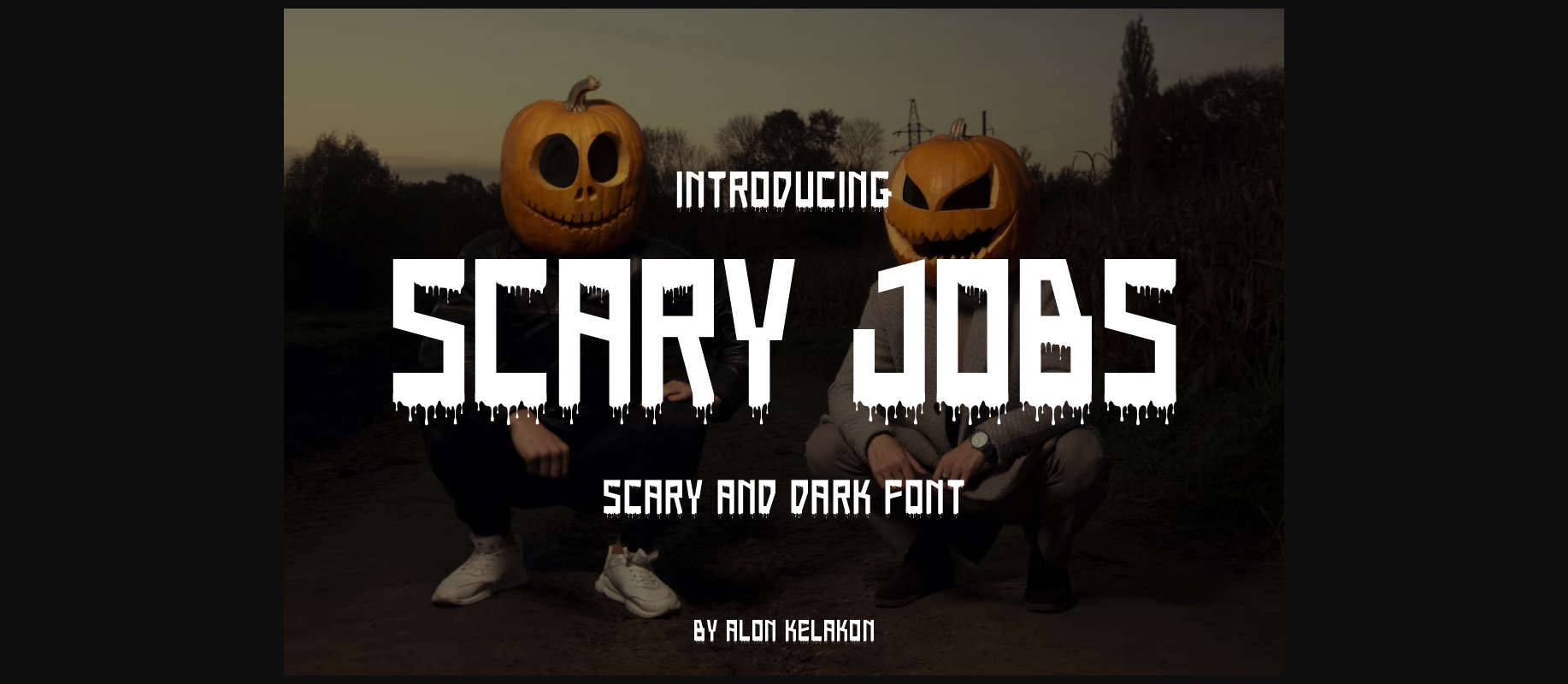
About Scary Jobs Font
Scary Jobs Font is unique decorative font. Ready to use for your design like labeling, clothing, movie scenes, poster, movie title, gigs, album covers, logos, and much more.